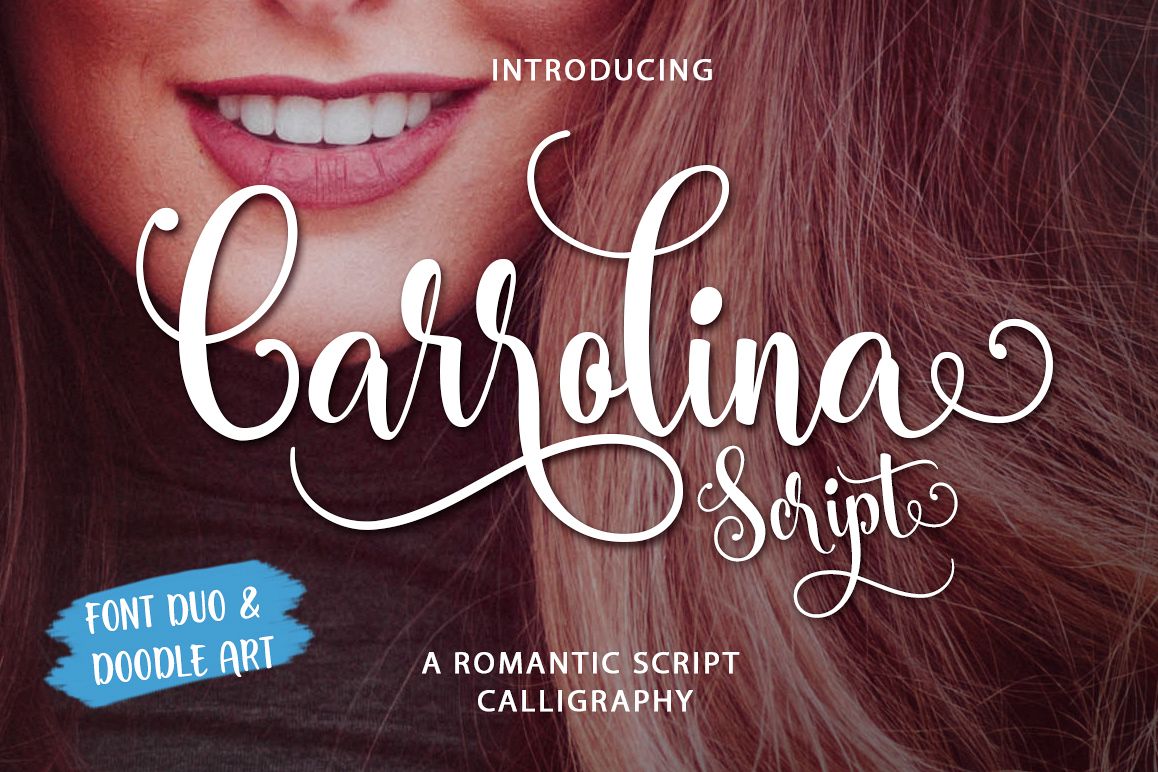
Say Hello to Carrolina Script ! Font Duo & Doodle Art
A New Romantic Script Calligraphy made with a touch of sweet, lovely
and charming attraction that adds to the impression of a beautiful and
elegant.
Can be used for various purposes.such as headings, signature, logos,
t-shirt, letterhead, signage, lable, news, posters, badges, wedding
invitation like greeting cards, branding materials, business cards,
quotes, posters, and more.